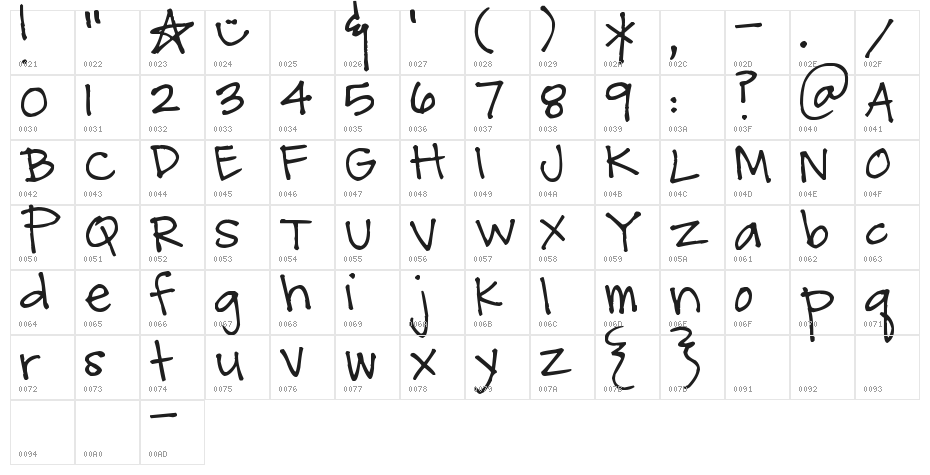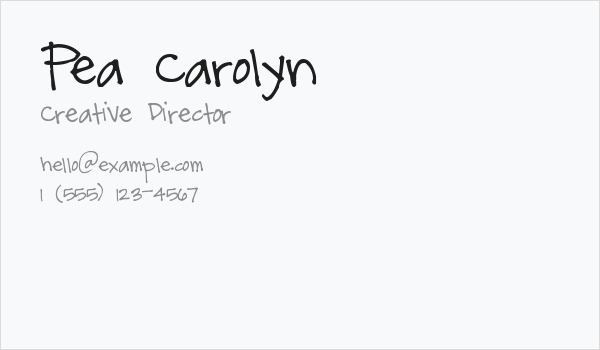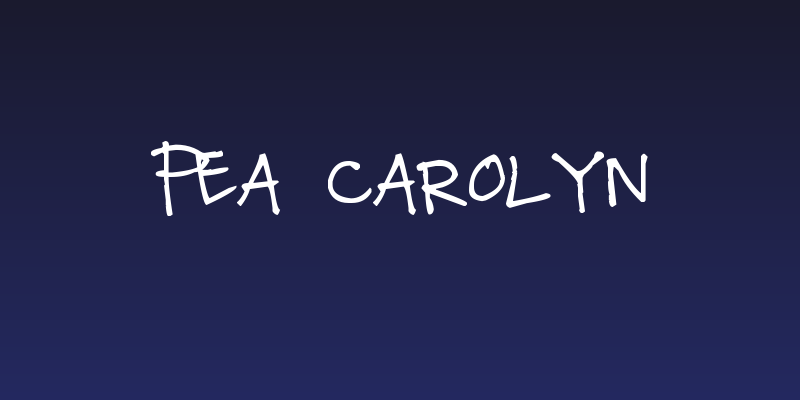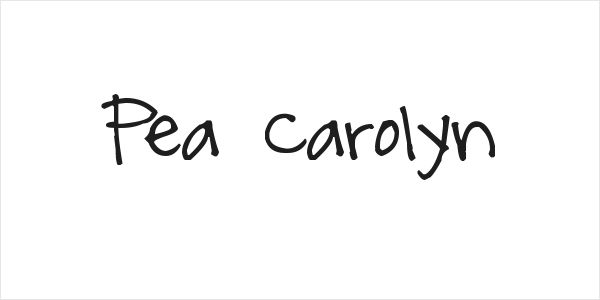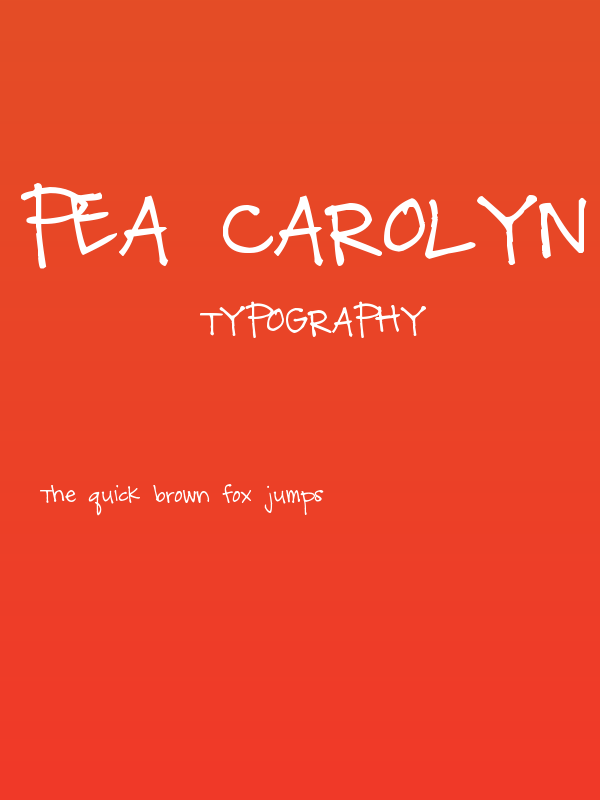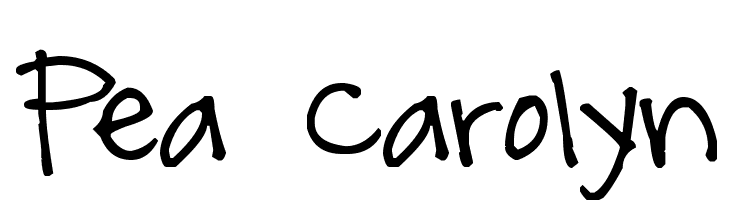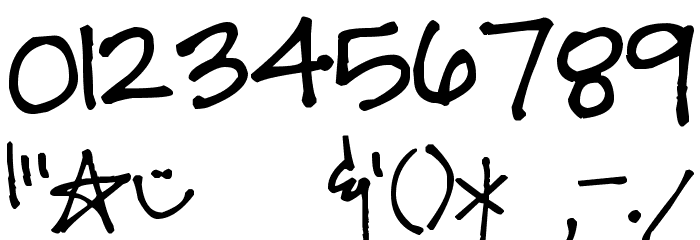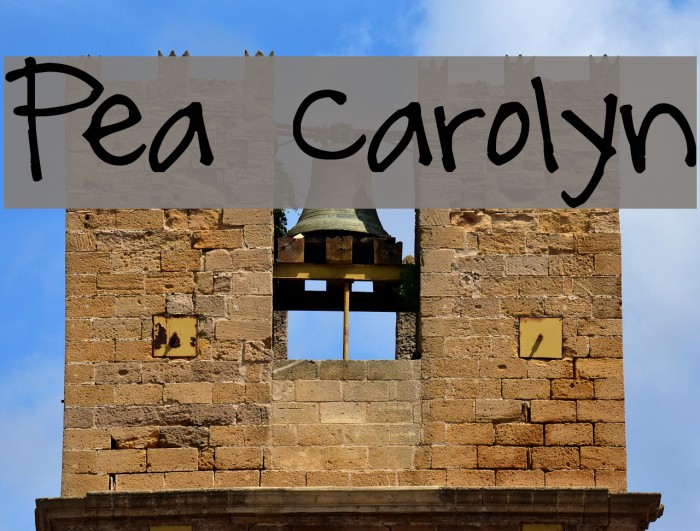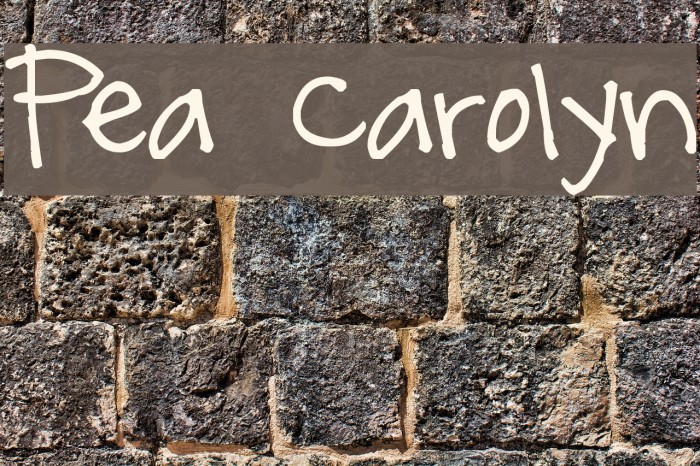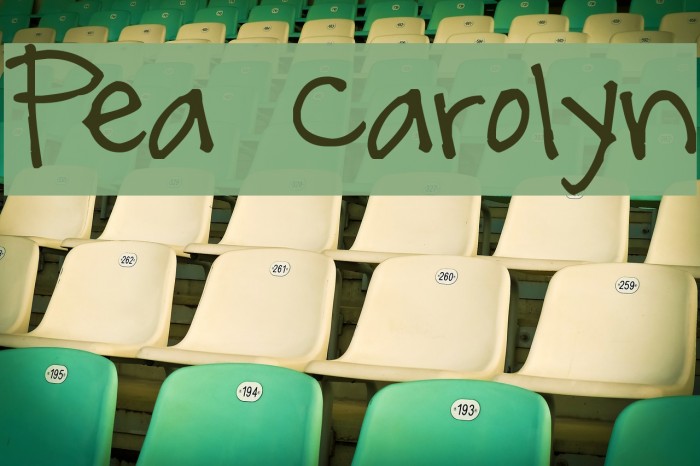
Pea Carolyn Font
| Stile generale | Casual, Playful |
| Caso d'uso | Headlines, Informal text, Creative projects |
| Progetti proposti | Ideal for greeting cards, personal blogs, children's books, and informal invitations. |